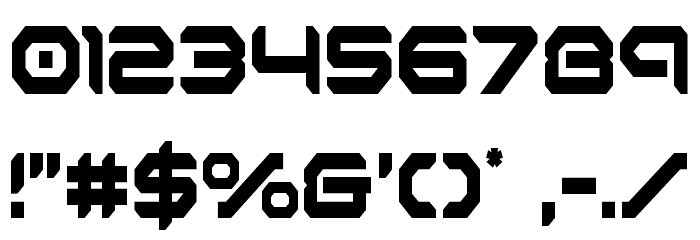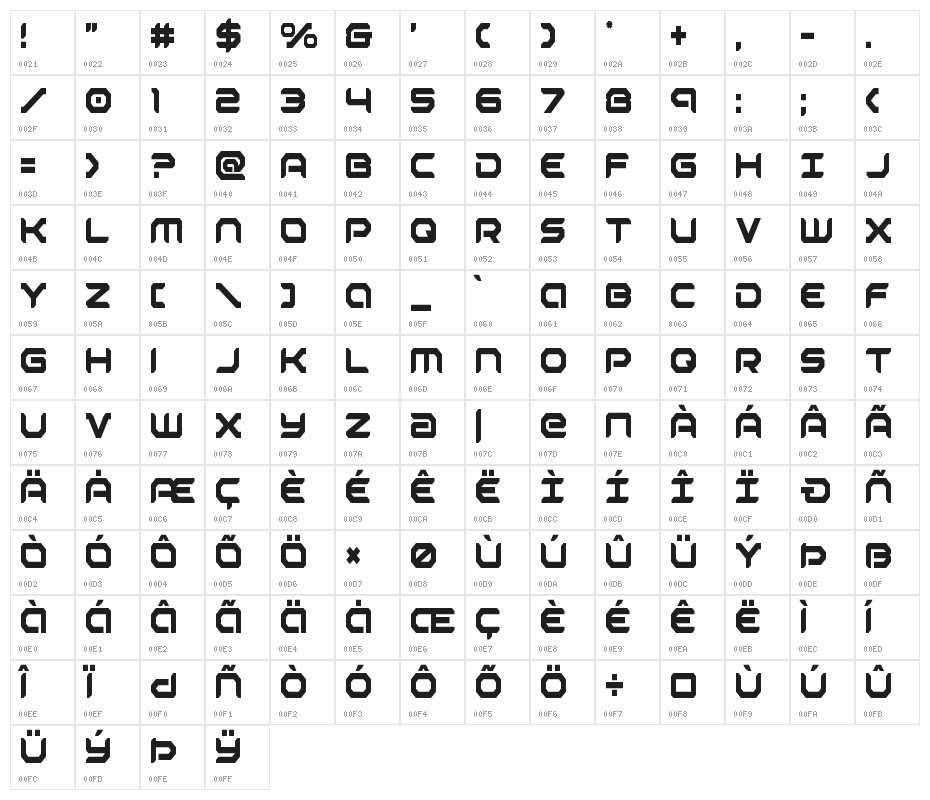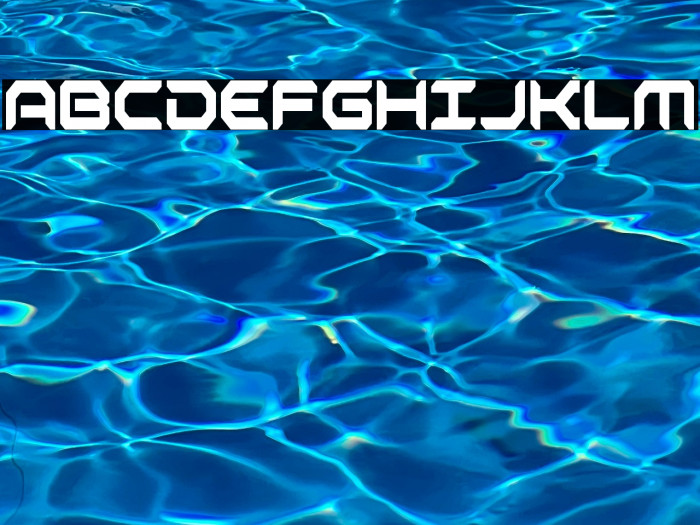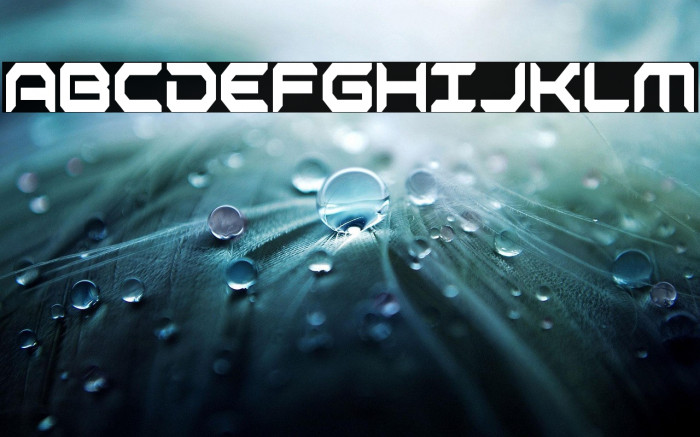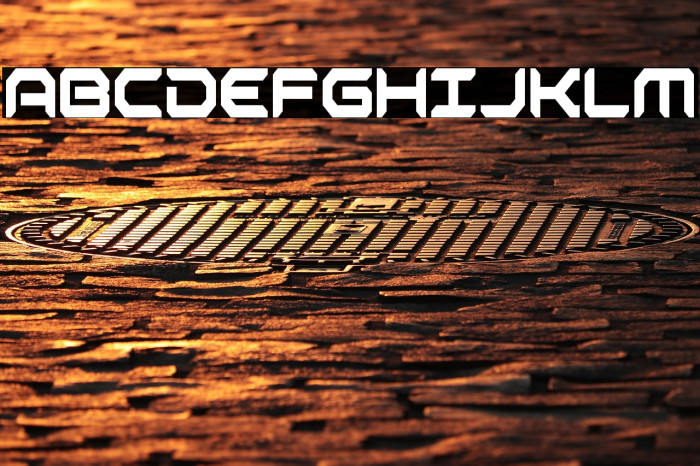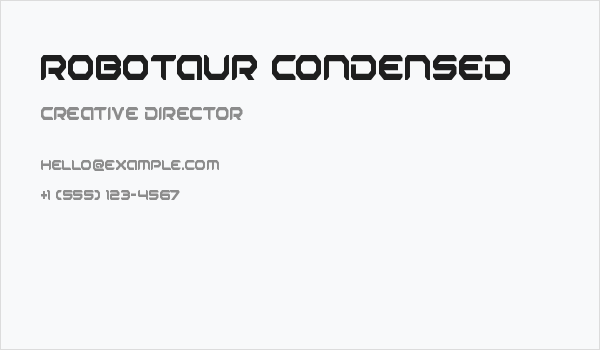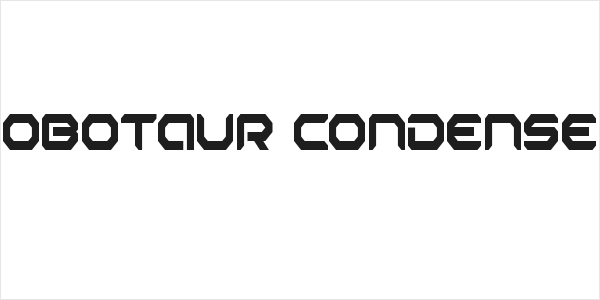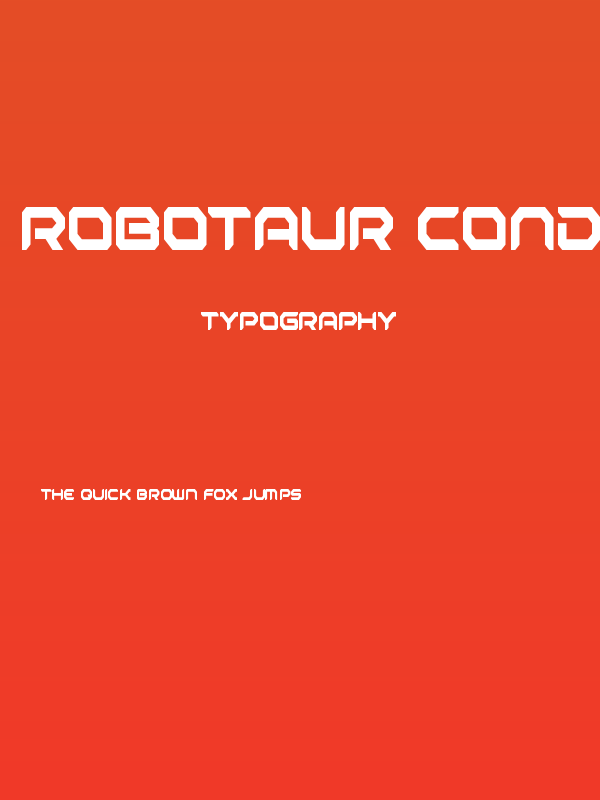
Robotaur Condensed Font
Robotaur Condensed Description
This font features a futuristic and geometric design, characterized by its bold, angular shapes and condensed form. The characters are constructed with sharp, straight lines and corners, giving it a robotic and mechanical appearance. The uppercase and lowercase letters maintain a consistent style, with a uniform height and width that enhances its condensed nature. The numerals and special characters follow the same design principles, ensuring a cohesive look across all glyphs. This font's unique style makes it stand out, offering a modern and tech-inspired aesthetic that is both eye-catching and distinctive.
| Proposed Projects | Ideal for technology-related branding, sci-fi posters, video game titles, and futuristic-themed designs. |